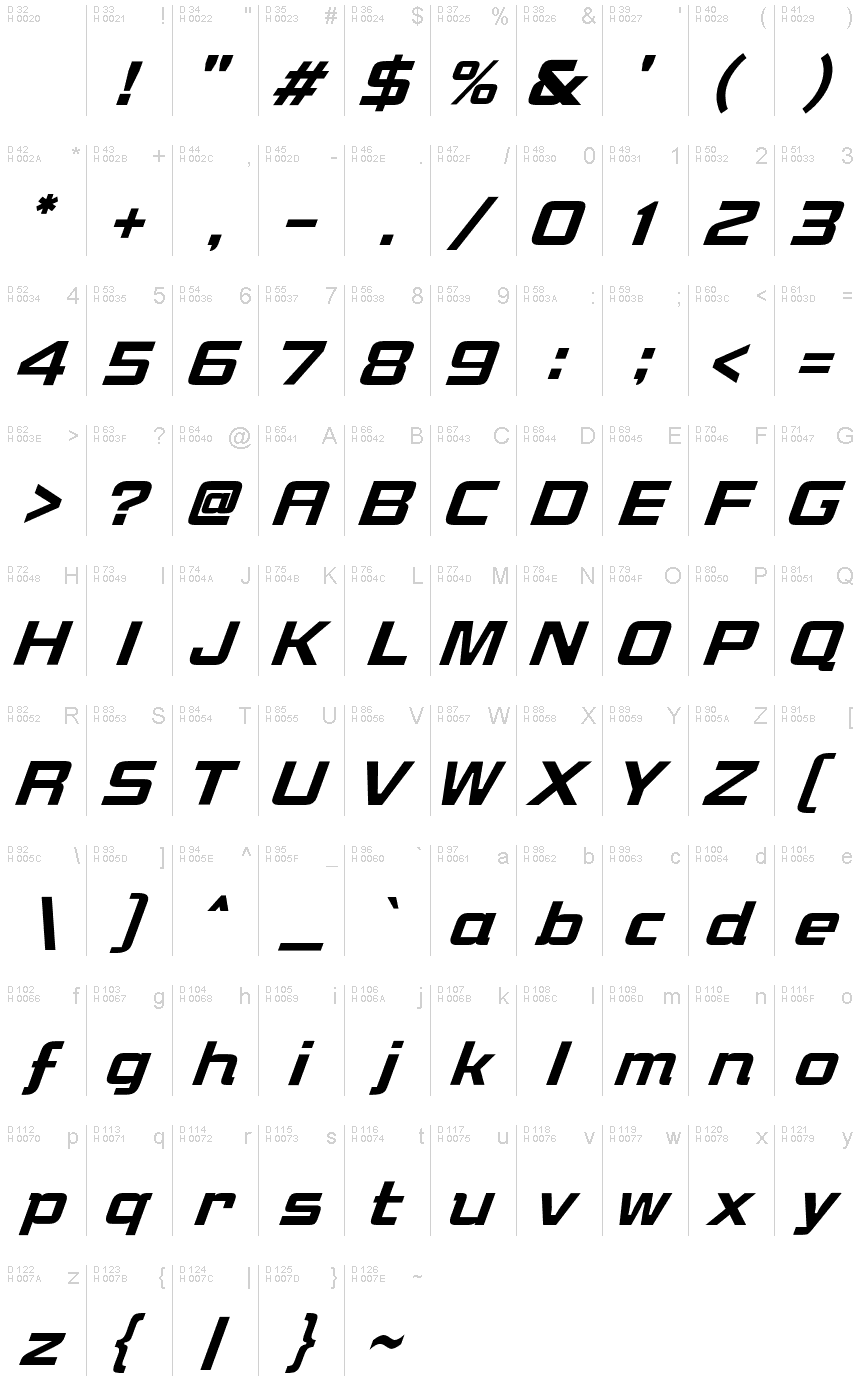
KHMenu BoldItalic
KHMenu Bold Italic font is a sans serif font designed by Televo.
In comparison to similar fonts found online, the characters in Re:Collection have been accurately recreated directly from the games where possible and have vastly improved spacing/kerning (especially when setting spacing to metric).
Numerous languages are supported including English, French, German, Italian, Spanish, Turkish, Polish, Norwegian, Swedish, Russian, Portuguese, Danish, Indonesian and many more latin-based languages. Note that while KHScala contains all known symbols, the font will contain translation inaccuracies becuase the Scalan language has not been fully deciphered.